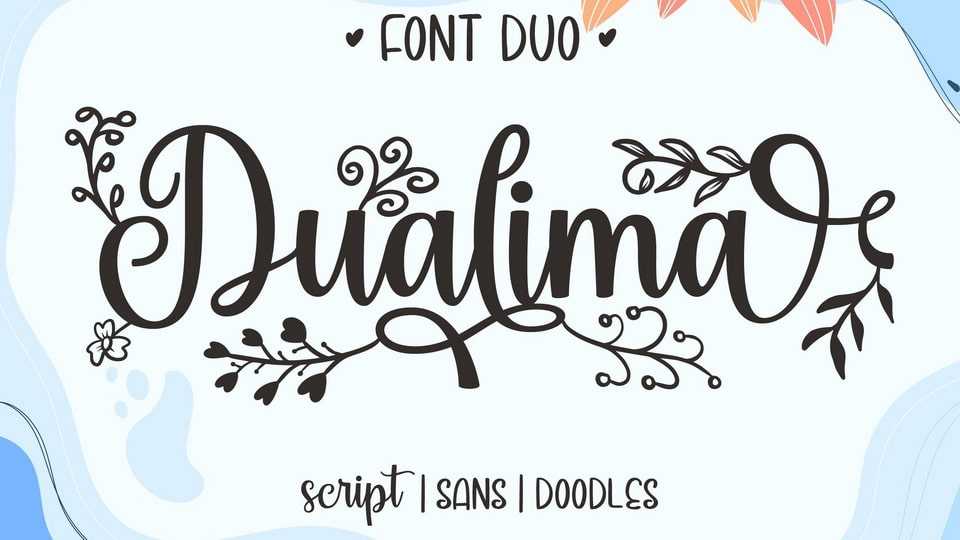
Download Dualima font, a delicate, elegant, and flowing typeface. It has beautiful and well-balanced characters and as a result, it matches a wide pool of designs.